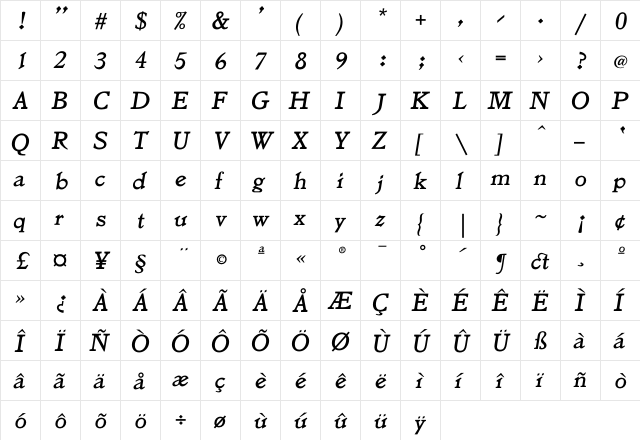
Jenson LObl Font Preview
Jenson LObl
Design Context for Jenson Typeface
Jenson offers clean, dependable letterforms without strong stylistic allegiance, making it a practical choice for designers who need flexibility.